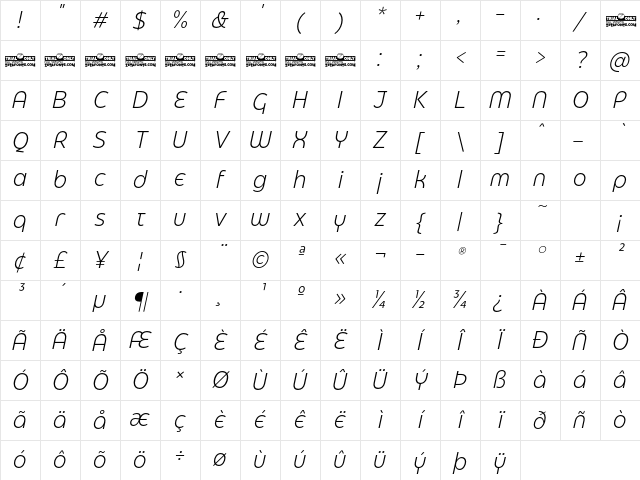
Eastman Grotesque Alt Trial Light Italic Free Font
Eastman Grotesque Alt Trial Light Italic
Foundry: Zetafonts
Designer: Francesco Canovaro
Design Context for Eastman Grotesque Alt Trial
Eastman Grotesque Alt Trial is a composed and adaptable typeface that performs quietly and consistently across a wide range of design contexts. The slanted form adds forward momentum and visual energy. Its slender proportions lend an understated elegance to any composition.